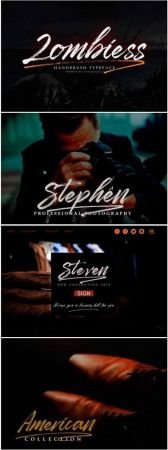
DesignOptimal - Zombiess Font
DesignOptimal.com - Zombiess Font
Zombiess is a powerful and rough font with a raw feel. It will add an adventurous look to any design project!